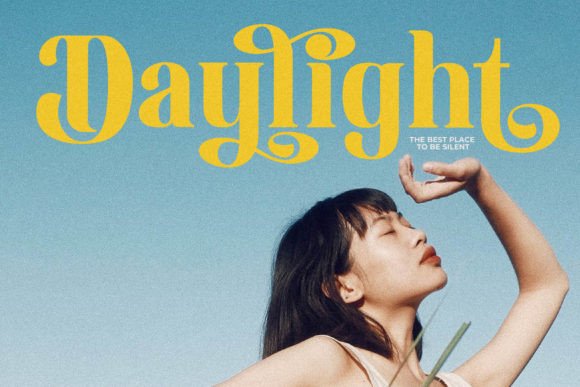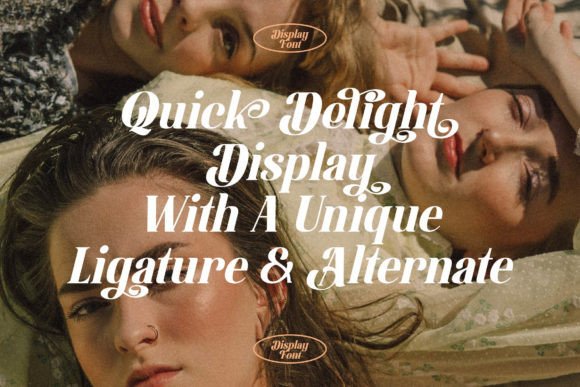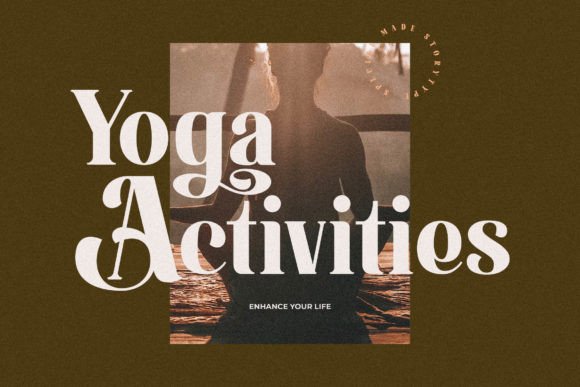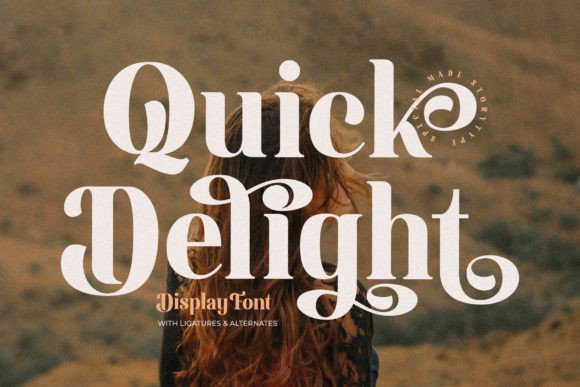
Introduction to Quick Delight Font
Quick Delight is a modern and stylish serif font described by a unique charm.
Extremely versatile and elegant, this typeface is suitable for a wide spectrum of projects that require a refined look .